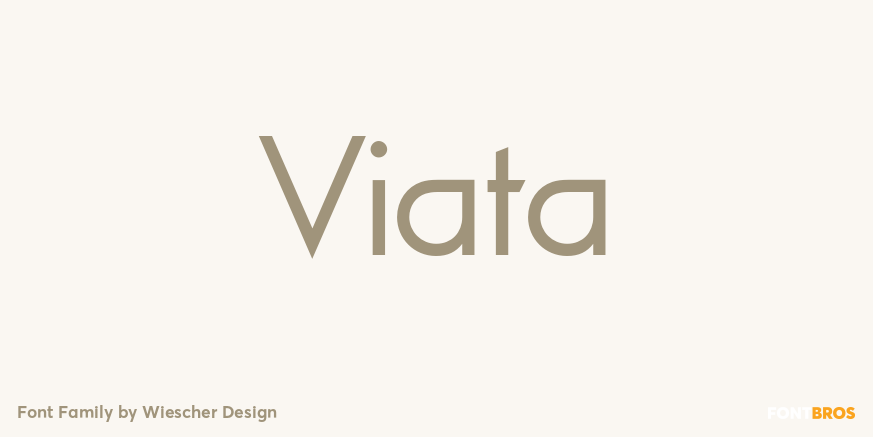
Viata
About Viata
VIATA is my new experimental Sans again based on the modernistic, constructivist letterforms of the Bauhaus era. The names Herbert Bayer and Paul Renner come to mind as design beacons of that time. VIATA has flat tops and round bottoms, which give the…